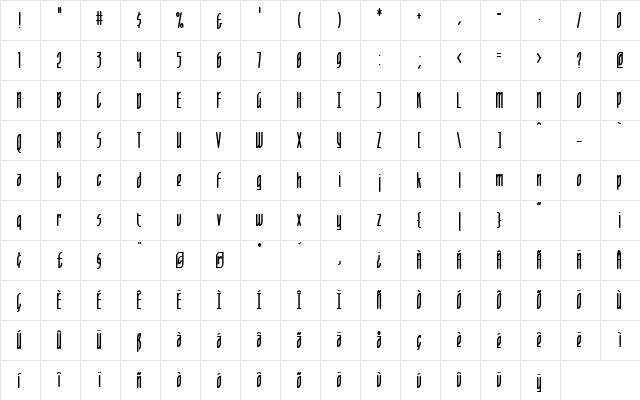
Leaflet Regular
Design Context for Leaflet Typeface
Leaflet is a composed and adaptable typeface that performs quietly and consistently across a wide range of design contexts.